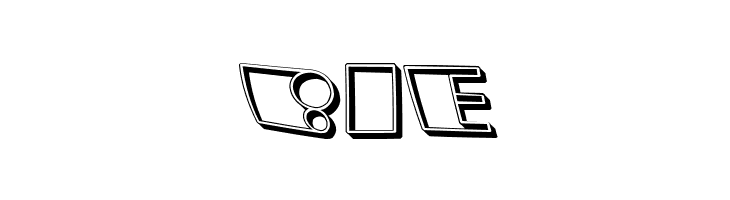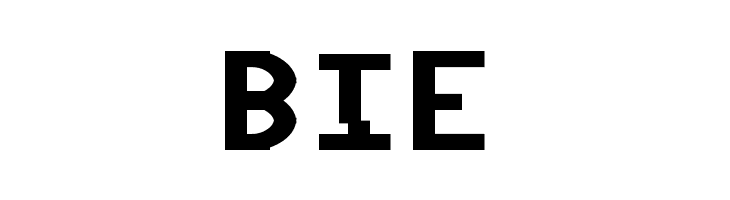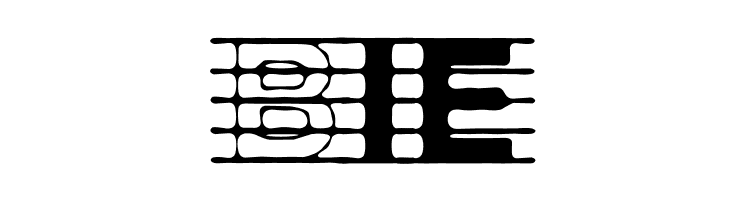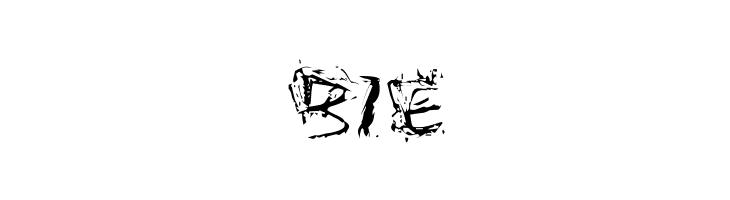
A playful, distorted font with a bold, three-dimensional look.
A bold, geometric font with a distressed, glitch-like effect for modern designs.
A distressed, grunge-style font with jagged edges and a chaotic appearance.
A bold, distorted font with a modern and edgy style.
A bold, geometric font with a modern industrial style.
A decorative font with musical staff lines integrated into each character.
A distressed, eclectic font with a vintage ransom note style.